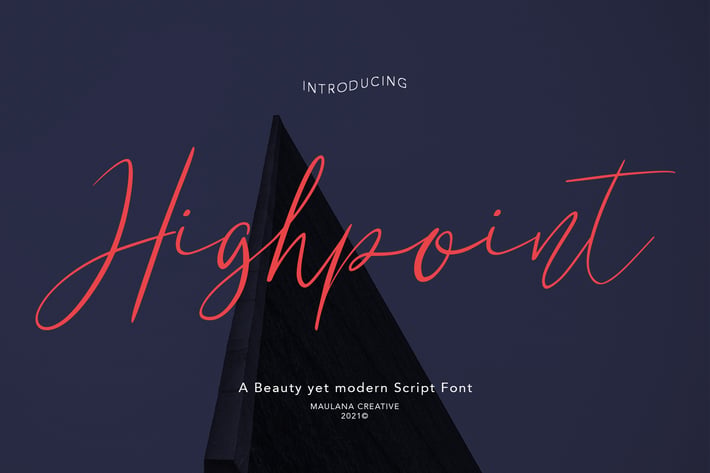
Highpoint Beauty Script Font
Highpoint is feminine yet modern script font, with clean thin high contrast stroke, super slanted and fun character. It has Opentype features ligatures of character, To give you an extra creative work. Highpoint font support multilingual more than 100+ language. This font is good for logo design, Social media, Movie Titles, Books Titles, a short text even a long text letter and good for your secondary text font with sans or serif. Make a stunning work with Highpoint font.